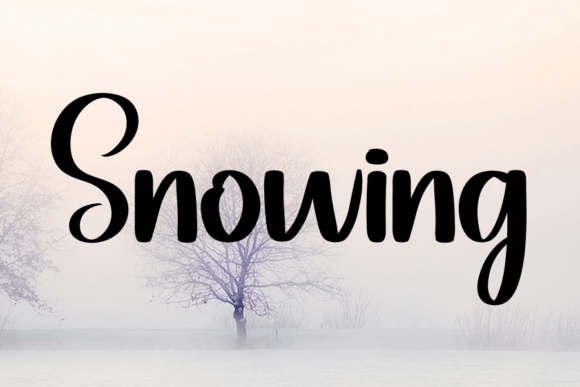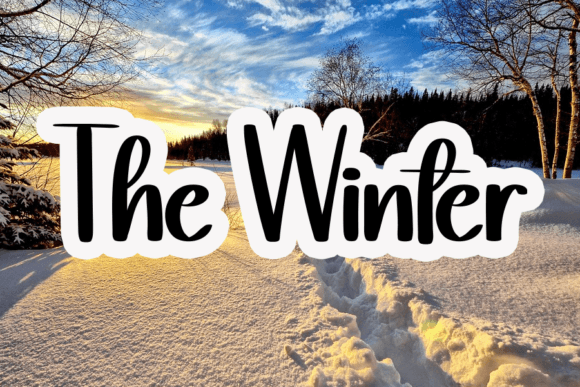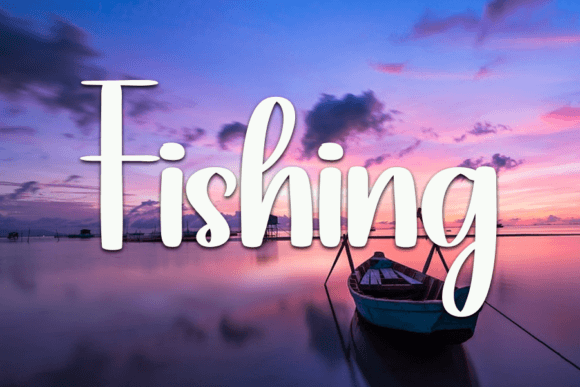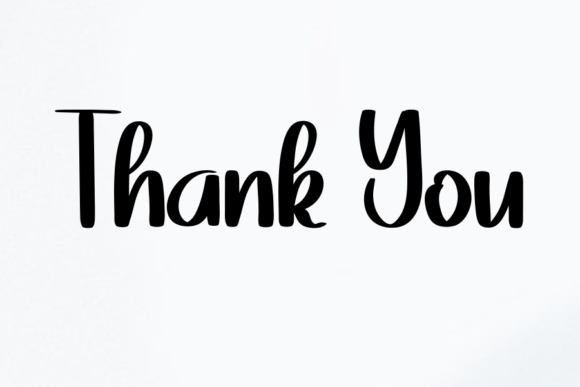
Introducing Blush Font: The Sweet and Beautiful Handwritten Font for Your Design Projects
Are you looking for a font that can add a touch of warmth and coziness to your design projects? Look no further than Blush Font! This sweet and beautiful handwritten font is perfect for designers and crafters who want to create stunning visuals that capture the hearts of their audience. In this article, we’ll dive into the features and benefits of Blush Font, and explore how you can use it to elevate your design projects.
What is Blush Font?
Blush Font is a modern handwritten font that features characters that dance along the baseline, creating a playful and whimsical feel. This font is designed to add a cozy accent to any design project, making it perfect for a wide range of applications, from branding and packaging to invitations and social media graphics.
Key Features of Blush Font
- Handwritten style: Blush Font has a beautiful, handwritten style that adds a personal touch to your designs.
- Playful characters: The characters in Blush Font dance along the baseline, creating a playful and whimsical feel.
- Coziness: This font is designed to add a cozy accent to your designs, making it perfect for projects that require a warm and inviting feel.
- Versatility: Blush Font can be used for a wide range of design projects, from branding and packaging to invitations and social media graphics.
Benefits of Using Blush Font
So, why should you choose Blush Font for your design projects? Here are just a few benefits of using this beautiful font:
- Adds a personal touch: Blush Font’s handwritten style adds a personal touch to your designs, making them more relatable and engaging.
- Creates a cozy atmosphere: The playful characters and cozy feel of Blush Font make it perfect for creating designs that evoke a sense of warmth and comfort.
- Easy to read: Despite its playful style, Blush Font is easy to read, making it perfect for body text and headlines.
- Versatile: Blush Font can be used for a wide range of design projects, making it a great addition to your font library.
How to Use Blush Font in Your Design Projects
Now that we’ve explored the features and benefits of Blush Font, let’s talk about how you can use it in your design projects. Here are a few ideas to get you started:
- Branding and packaging: Use Blush Font to create beautiful branding and packaging designs that stand out on store shelves.
- Invitations and stationery: Add a touch of whimsy to your invitations and stationery with Blush Font.
- Social media graphics: Use Blush Font to create eye-catching social media graphics that capture the hearts of your audience.
- Web design: Add a cozy accent to your website with Blush Font, perfect for blogs, portfolios, and e-commerce sites.
Tips and Tricks for Working with Blush Font
Here are a few tips and tricks for working with Blush Font:
- Pair with bold fonts: Pair Blush Font with bold fonts to create a striking contrast and add visual interest to your designs.
- Experiment with colors: Try pairing Blush Font with different colors to create a unique and eye-catching look.
- Use for headlines and body text: Blush Font is easy to read, making it perfect for both headlines and body text.
In conclusion, Blush Font is a beautiful and versatile handwritten font that’s perfect for designers and crafters who want to add a touch of warmth and coziness to their design projects. With its playful characters, cozy feel, and ease of use, Blush Font is a great addition to any font library. Whether you’re working on branding and packaging, invitations and stationery, or social media graphics and web design, Blush Font is sure to become a favorite.